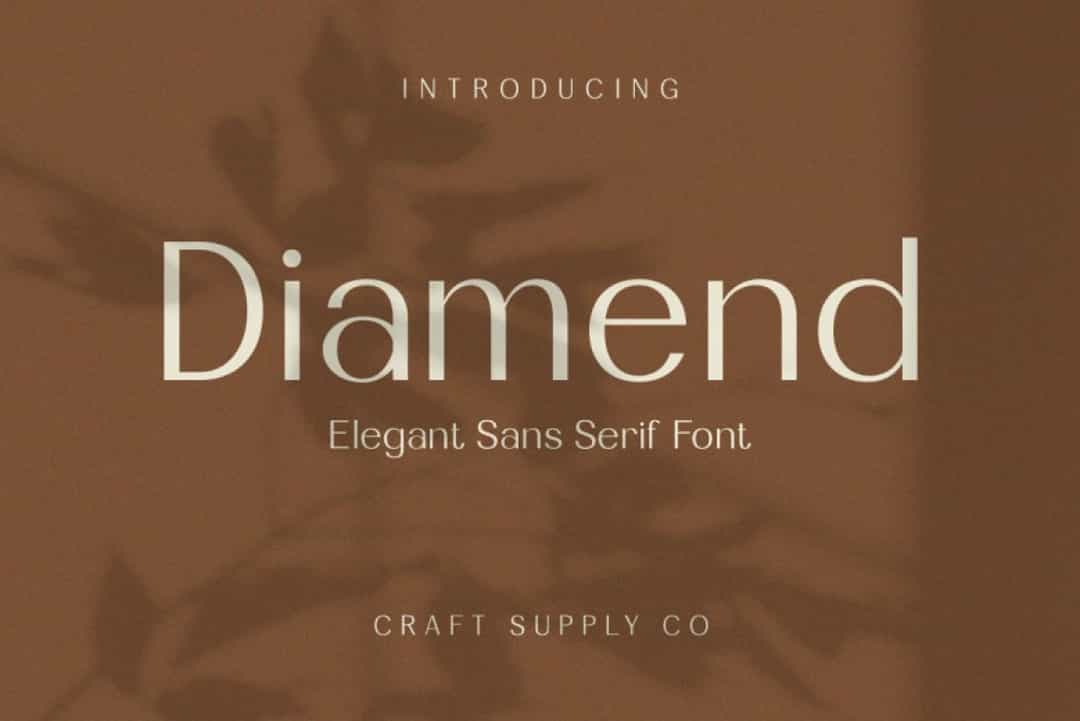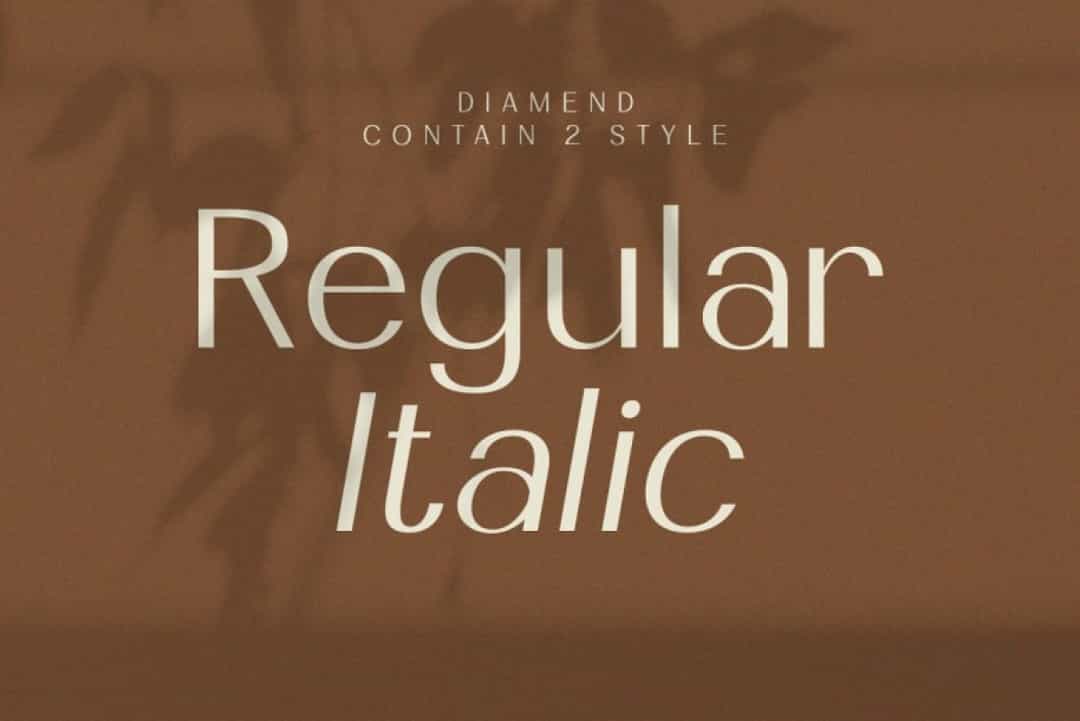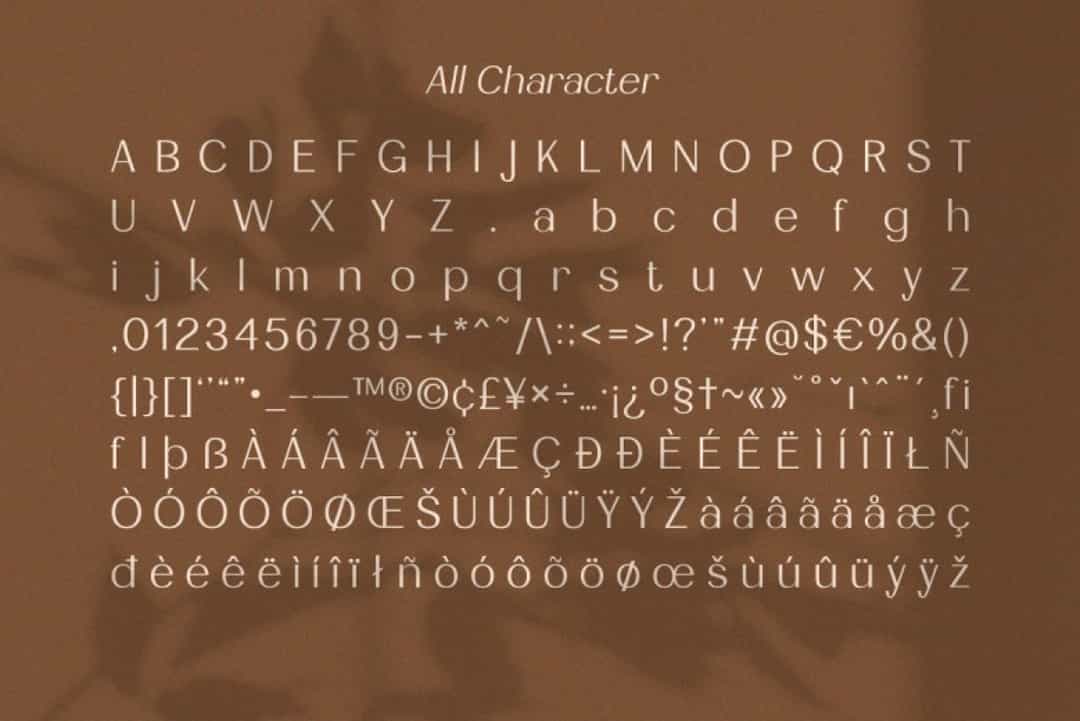
Diamend is an exquisite sans serif typeface that embodies modernity with elegance. With sleek lines and an exquisite appearance, Diamend can blend classic elements seamlessly into modern designs. Make your designs more attractive using Diamend’s stunning beauty while exploring endless creative opportunities!